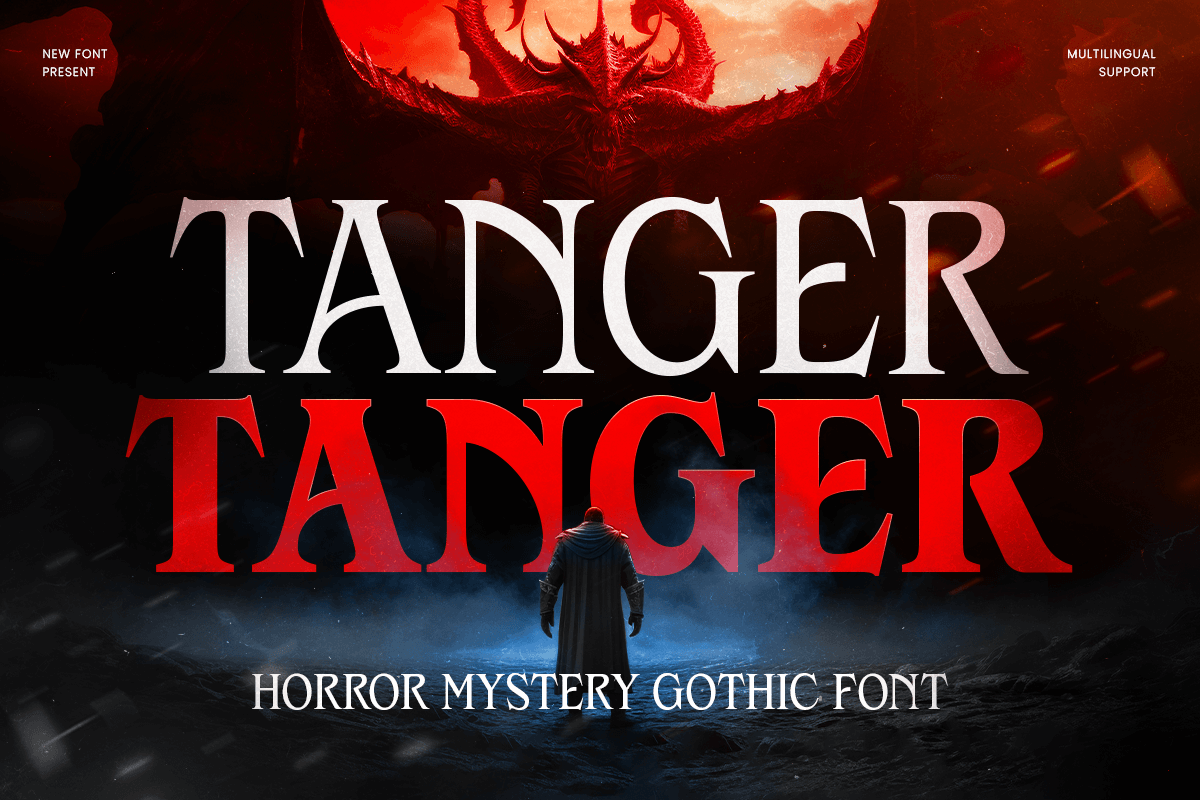
TANGER
-Horror Mystery Gothic Font
TANGER – Horror Mystery Gothic Font
An eerie gothic typeface crafted for chilling titles, dark branding, and mysterious storytelling.
TANGER is a horror mystery gothic font designed to evoke fear, suspense, and shadowy atmospheres. With its sharp gothic strokes, dramatic curves, and vintage terror-inspired forms, TANGER brings an ominous tone to any project that needs a touch of darkness.
Perfect for horror movie posters, mystery book covers, haunted house branding, paranormal podcasts, and eerie social media graphics, TANGER delivers a chilling aesthetic that instantly sets the mood. Each letter is crafted to feel unsettling yet captivating, making it ideal for storytelling that leans into the unknown.
Whether your project is supernatural, thriller-themed, or steeped in classic gothic style, TANGER offers the striking identity needed to pull audiences into a world of suspense and intrigue.
TANGER – Horror Mystery Gothic Features
• Dramatic gothic letterforms inspired by classic horror themes
• Perfect for mystery titles, horror posters, and dark branding
• Includes uppercase, lowercase, numerals, and punctuation
• Ideal for print and digital eerie-themed designs
• OpenType features for enhanced creative expression
• Strong visual impact for logos, covers, and promotional graphics
Let the shadows speak louder with TANGER – the ultimate gothic horror font for chilling, unforgettable designs. 🕯️👁️